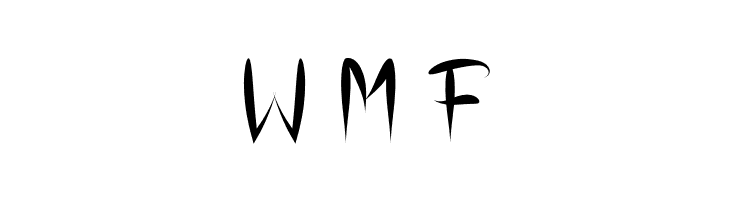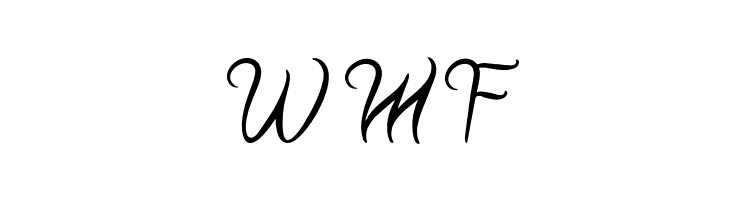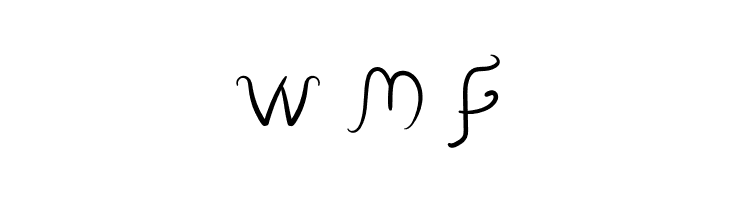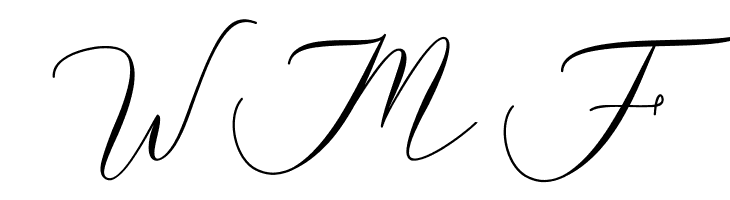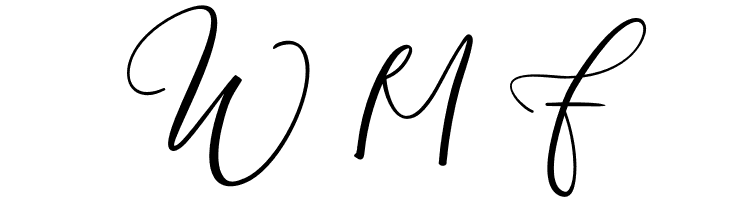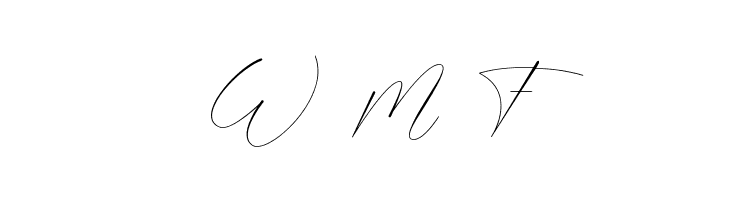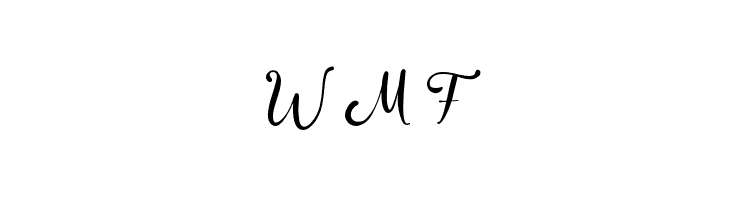
A whimsical and artistic font with flowing, exaggerated curves and strokes.
A playful and elegant cursive font with interconnected, flowing letters.
A whimsical, artistic font with flowing, cursive-like strokes and playful loops.
An elegant and flowing script font with graceful loops and smooth cursive strokes.
An elegant, cursive script font with flowing, ornate characters.
An elegant script font with dramatic flourishes and high contrast strokes.
A lively and elegant script font with flowing, cursive letterforms.
An elegant script font with flowing, interconnected letters and decorative flourishes.
An ornate and decorative font with elaborate swirls and flourishes.
A flowing, cursive font with elegant loops and swashes.